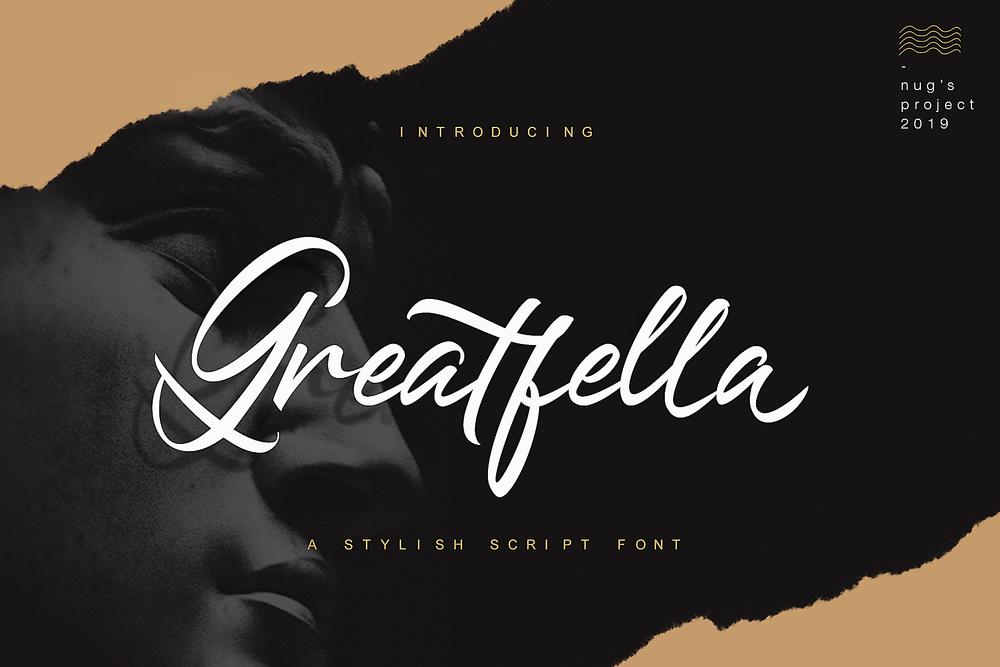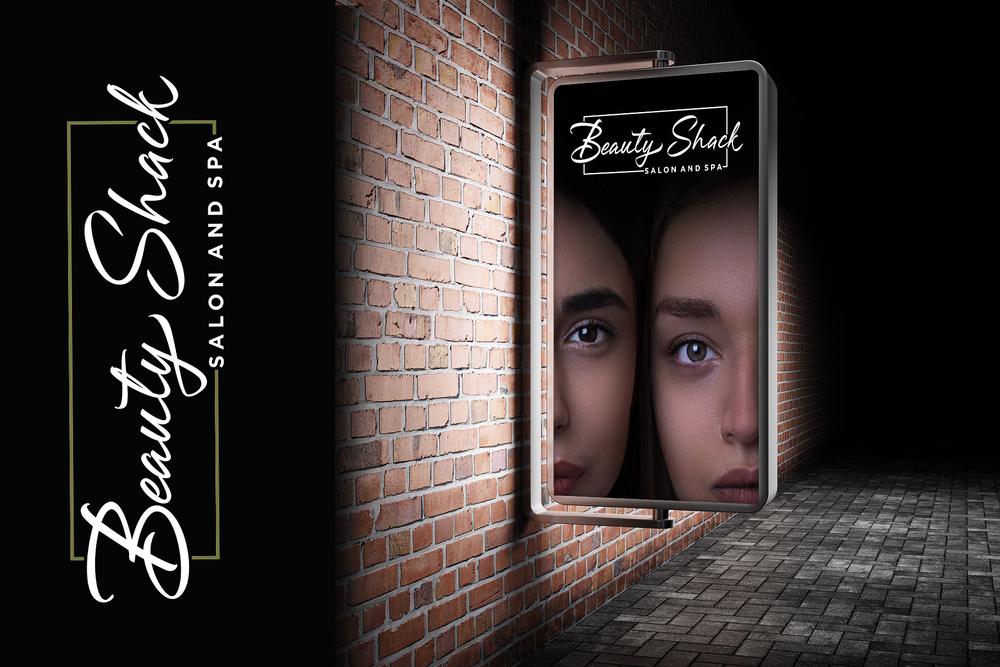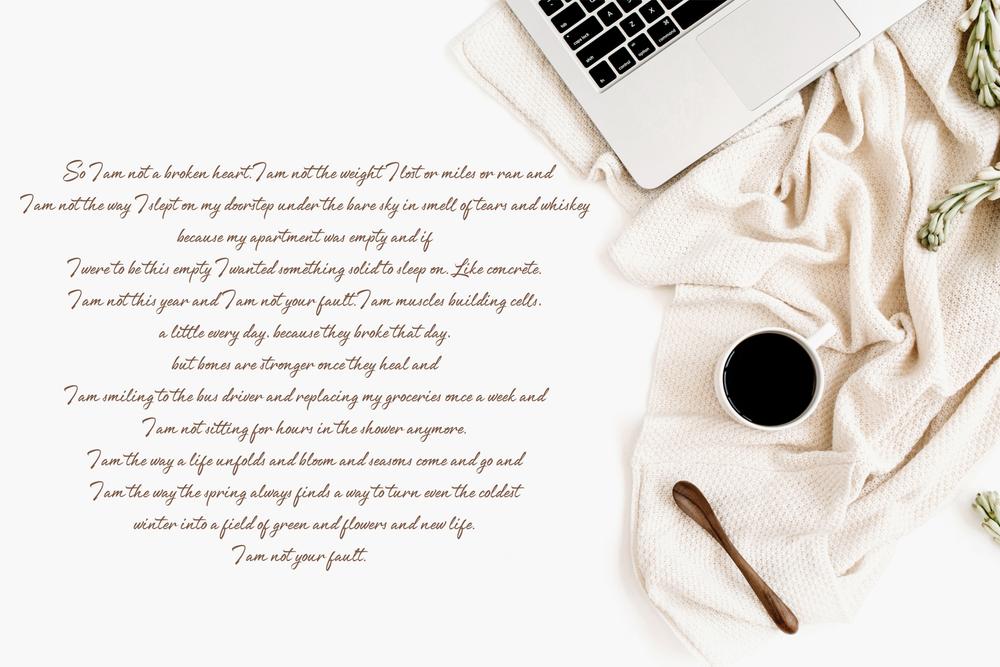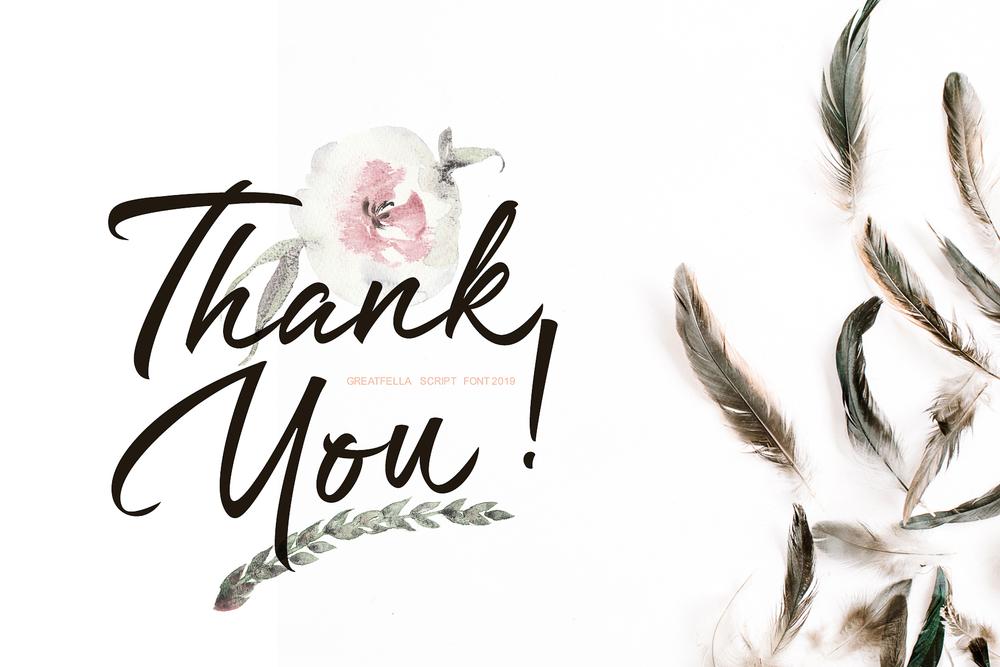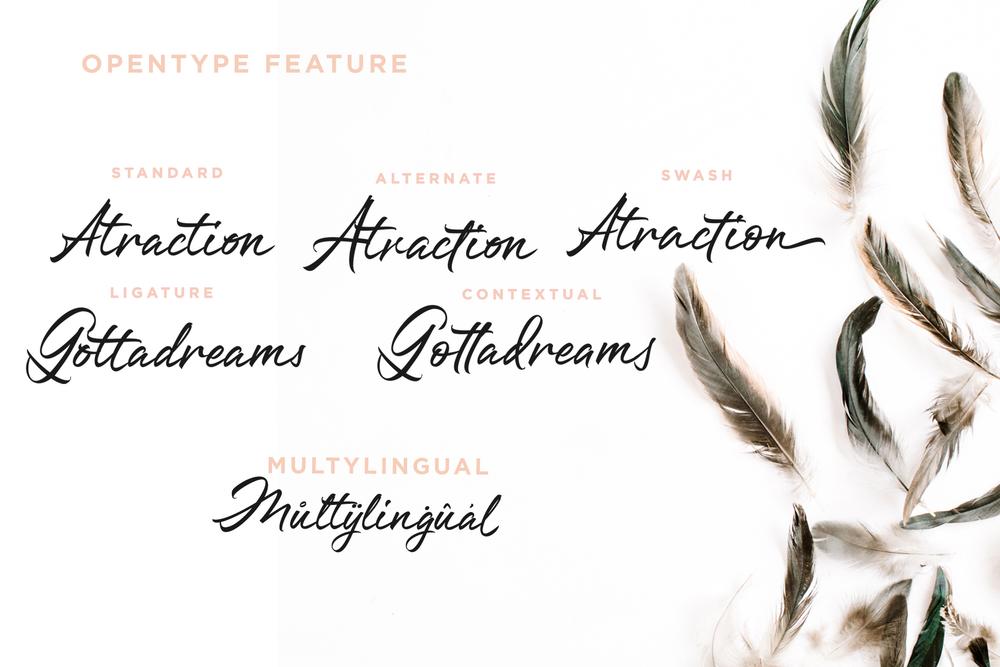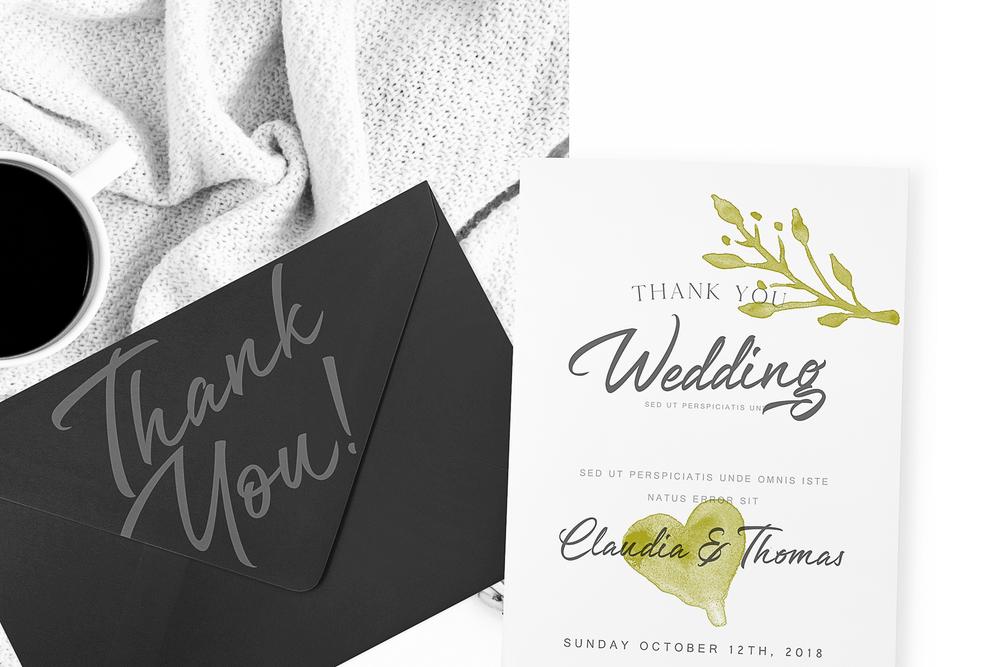
Greatfella is a stunning script with a smart feel. Use it to add a personal touch to any design project! ——————————————————————————————————————— Features : ✦ Multilingual ✦ Number ✦ Punctuation ✦ Opentype support How to get access alternate glyphs from open type fonts check this link : http://adobe.ly/1m1fn4Y